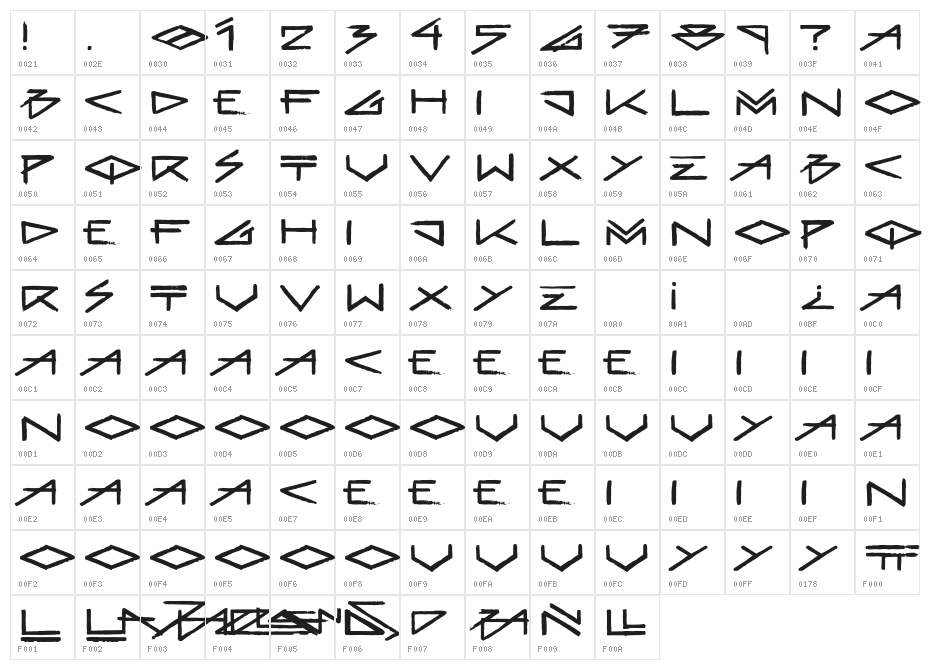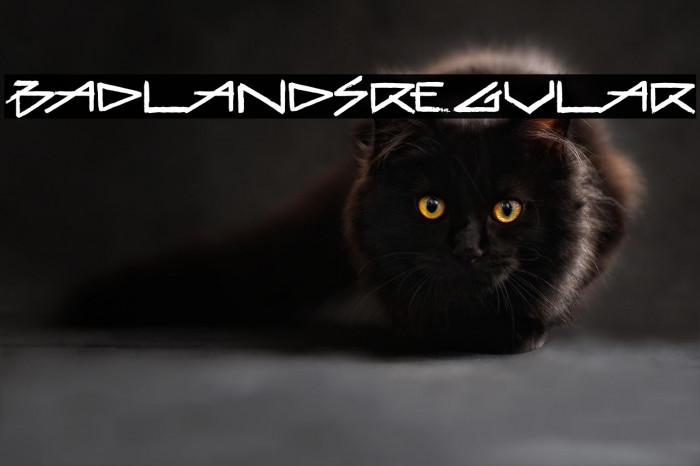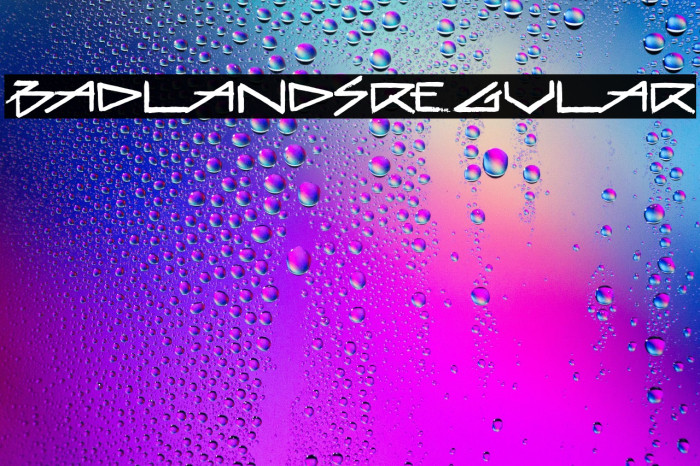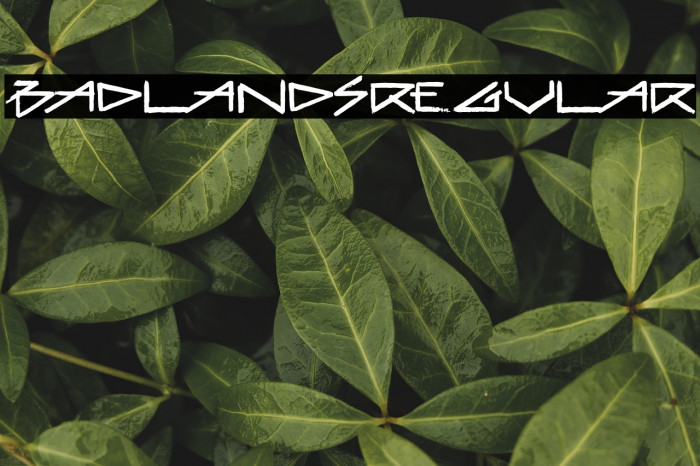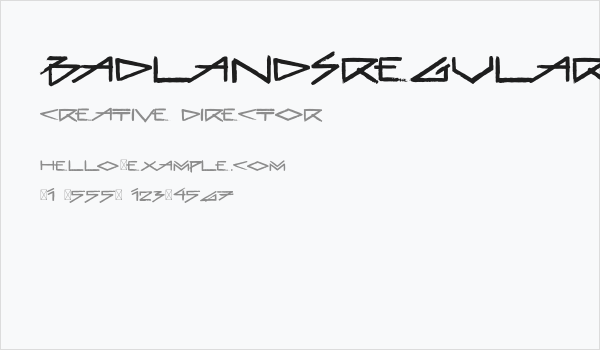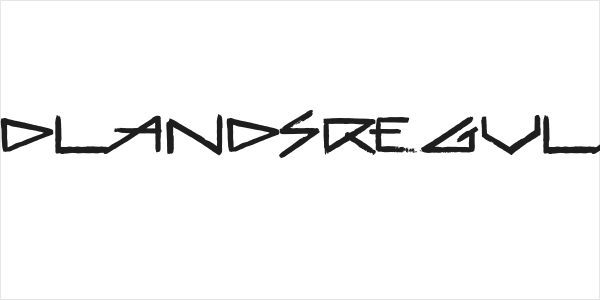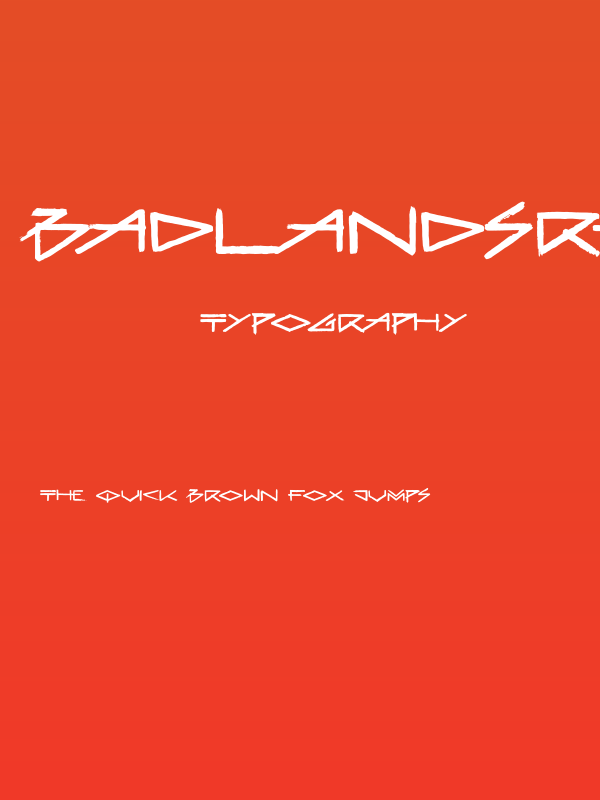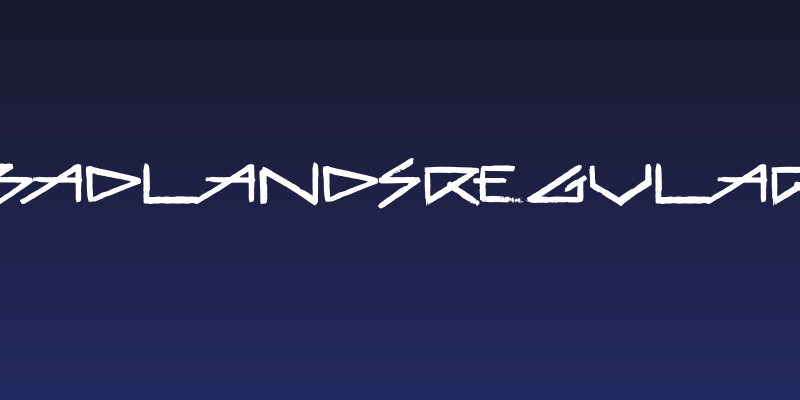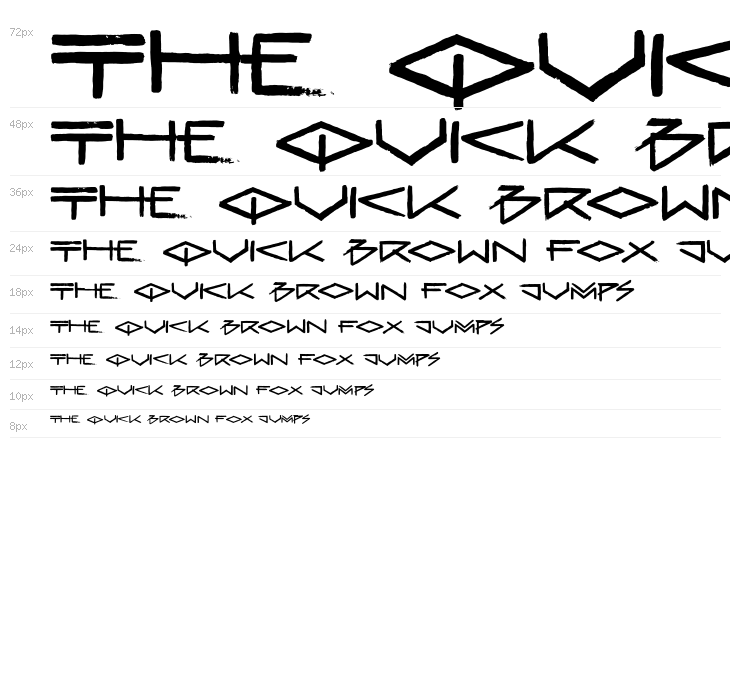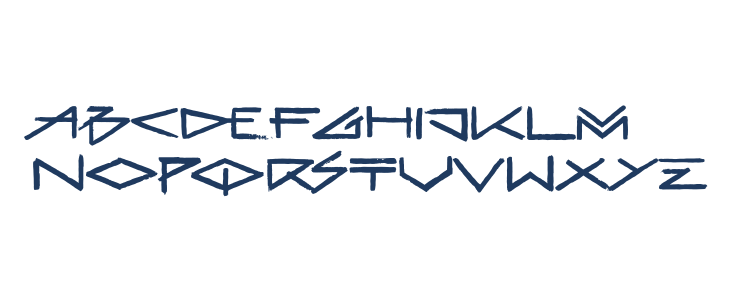
BadlandsRegular Font
This font features a rugged, distressed style with sharp, angular lines and a hand-drawn appearance. The characters are bold and impactful, with a unique, edgy look that suggests a sense of rebellion or adventure. The uppercase letters are particularly striking, with a geometric quality that adds to the font's distinctive character. The numbers and special characters maintain this rough, textured aesthetic, making the font suitable for projects that require a bold, unconventional look.
| Proposed Projects | Ideal for album covers, movie posters, video game titles, or any project needing a bold, adventurous aesthetic. |